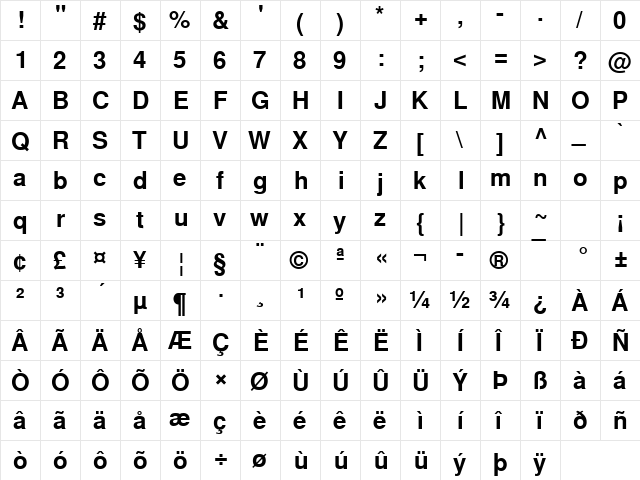
Nimbus Sans Becker L Bold Font Preview
Nimbus Sans Becker L Bold
Design Context for Nimbus Sans Becker L Typeface
Nimbus Sans Becker L is a composed and adaptable typeface that performs quietly and consistently across a wide range of design contexts. The heavy weight commands attention and anchors typographic hierarchies.
Pro Tip: Use Nimbus Sans Becker L in both headline and body roles to test its range before committing to a single application.